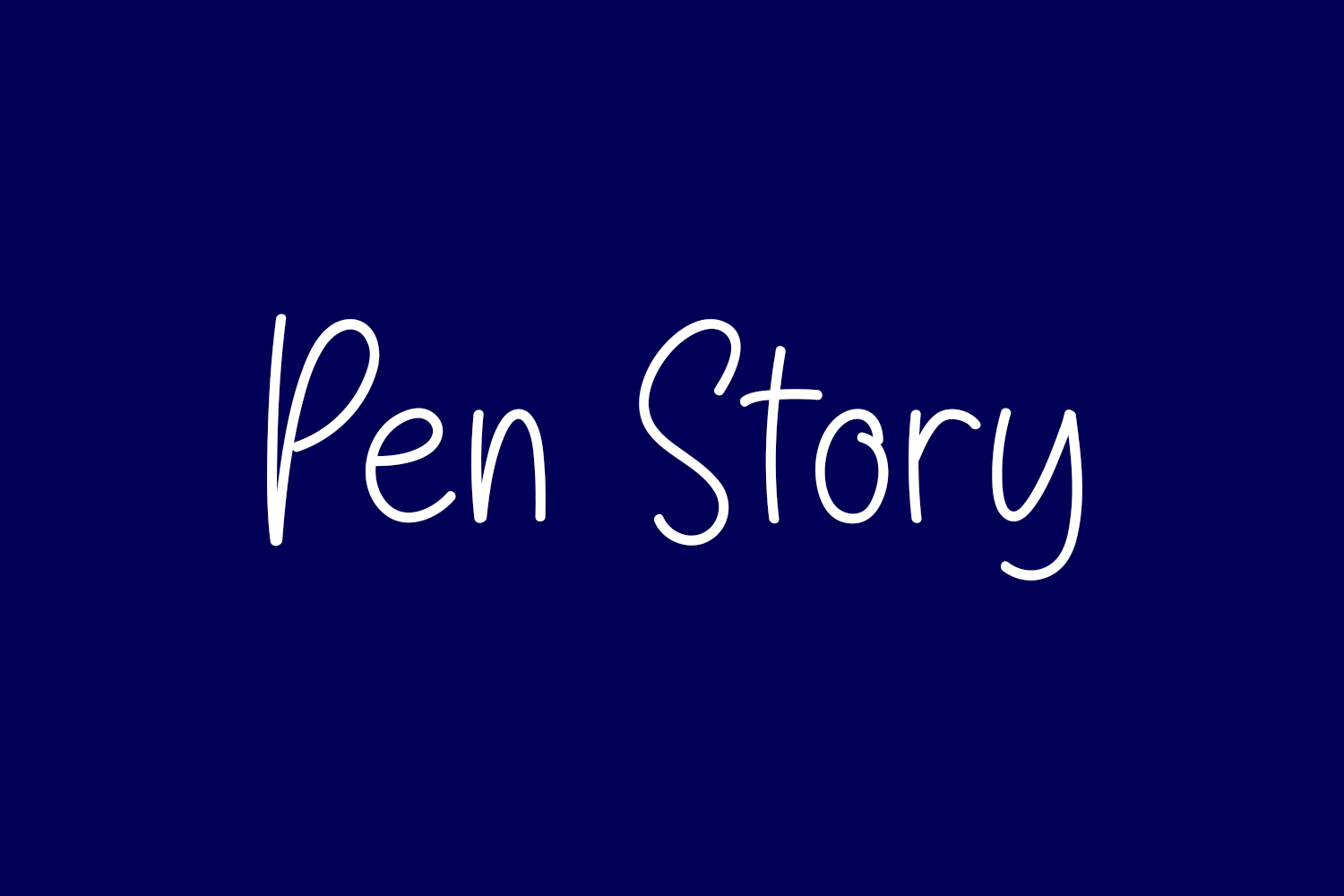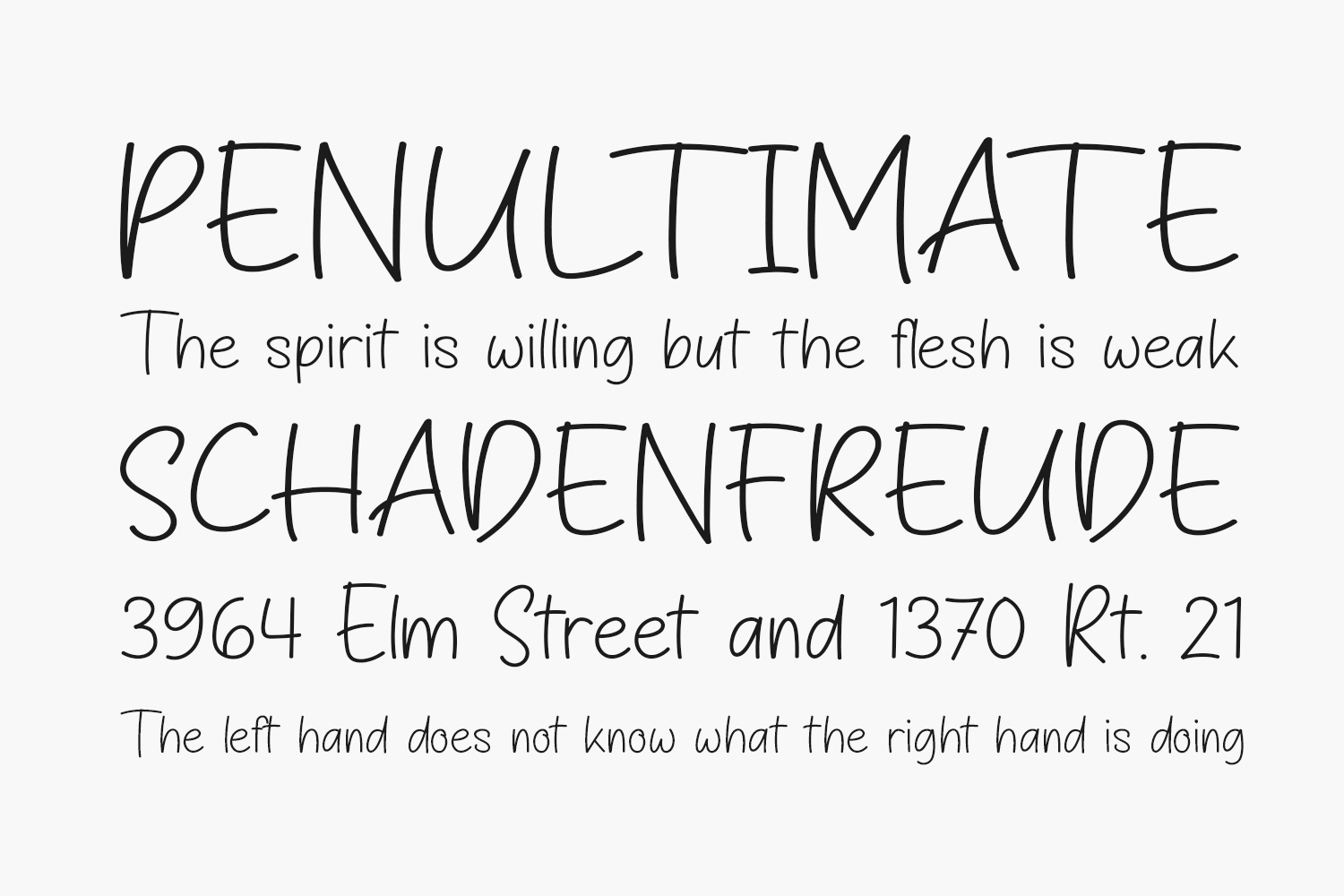
Pen Story Free Font is a captivating and delicate handwritten font, exuding whimsy and charm. Whether you’re seeking fonts for Instagram posts or elegant calligraphy scripts for your DIY projects, Pen Story will transform your creative concepts into exquisite works of art. Let this font unleash your imagination and bring your ideas to life with its artistic flair and unique character. Elevate your designs to new heights and make a lasting impression with the enchanting Pen Story font. Pen Story Free Font is free for personal use only. Please purchase the full version for commercial use.